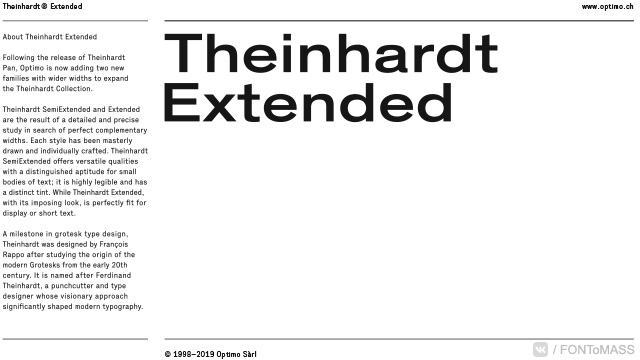
Theinhardt Extended Font
Theinhardt Extended Font is perfect for comprehensive corporate communications, extensive editorial layouts, large-scale signage systems, wide-format advertising campaigns, expansive web interfaces, broadened brand identity projects, stretched poster designs, extended packaging solutions, panoramic publication layouts, and comprehensive visual documentation systems.
What makes Theinhardt Extended Font so exciting is its masterful expansion of classic typographic principles that creates maximum visual impact while maintaining exceptional readability across extended horizontal applications and comprehensive design systems. This expertly stretched typeface features widened letterforms with optimized proportions and extended character spacing that immediately convey authority, comprehensiveness, and the confident use of visual space. The font's expanded construction and panoramic aesthetic create an instant sense of professional breadth and systematic coverage, making it ideal for projects that need to communicate complete solutions, comprehensive coverage, and the expansive scope of professional services to audiences seeking thorough, reliable, and systematically organized information across diverse communication platforms.
The Theinhardt Extended Font family typically includes multiple comprehensive weights and extended styles, often featuring thin through black weights along with corresponding italic versions and condensed alternatives. Extended font families frequently offer extensive character sets including advanced OpenType features, multiple numeral styles, and comprehensive international language support that ensure optimal typography across complex global communication requirements and broad-reaching professional applications.
The extended nature of Theinhardt Extended Font makes it particularly effective for large-scale applications where commanding presence and systematic organization are essential for comprehensive brand communication and professional credibility. System designers and corporate communicators will find this font especially valuable for projects that must maintain visual authority across multiple touchpoints while supporting extensive content hierarchies and diverse communication requirements.
What distinguishes Theinhardt Extended Font is its remarkable ability to project comprehensive authority while maintaining the clarity necessary for effective extended communication. This expansive characteristic makes it suitable for both corporate applications requiring systematic coverage and creative communications where projecting breadth and maintaining readability must work together seamlessly.
Professional designers appreciate that Theinhardt Extended Font brings invaluable systematic breadth to projects across industries including corporate communications, publishing, large-scale retail, and comprehensive professional services. Its extended character and systematic appeal make it essential for organizations seeking comprehensive typographic solutions that will provide consistent performance and professional authority across all contemporary communication challenges.
The systematically extended design excellence of Theinhardt Extended Font ensures optimal comprehensive performance across all broad-reaching professional communication requirements.